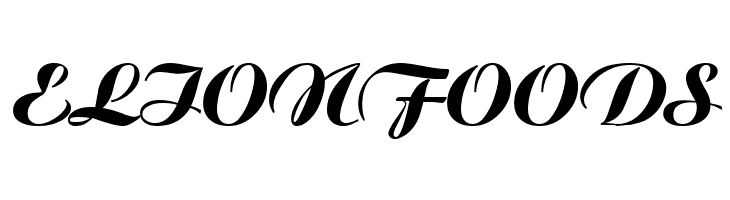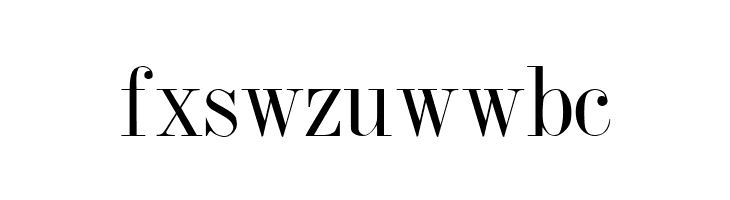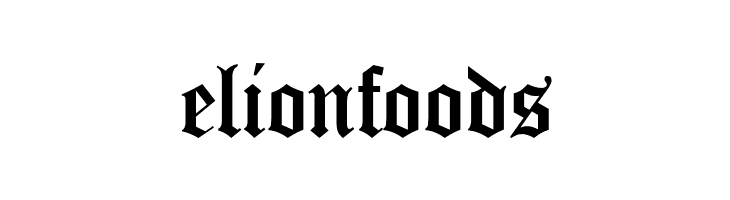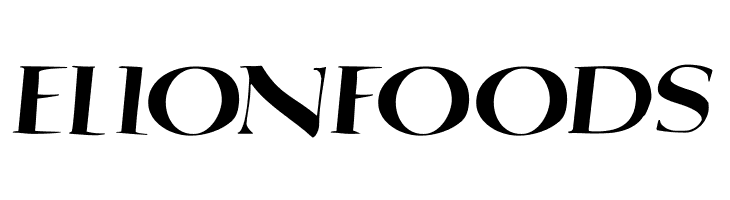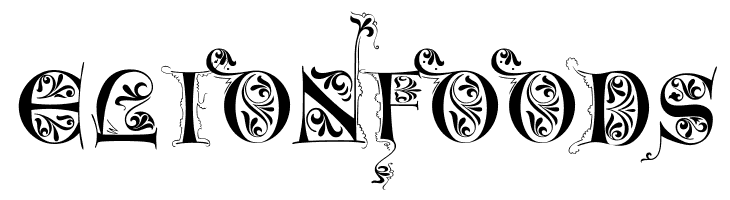
( Fonts by Casady & Greene )
A classic, high-contrast italic serif font with elegant and sophisticated styling.
A classic serif font with high contrast and elegant, sharp serifs.
A bold, Gothic-style font with ornate serifs and medieval elegance.
An oblique serif font with medium weight and elegant, angular serifs.
An ornate, decorative font with intricate floral embellishments, ideal for vintage-themed projects.